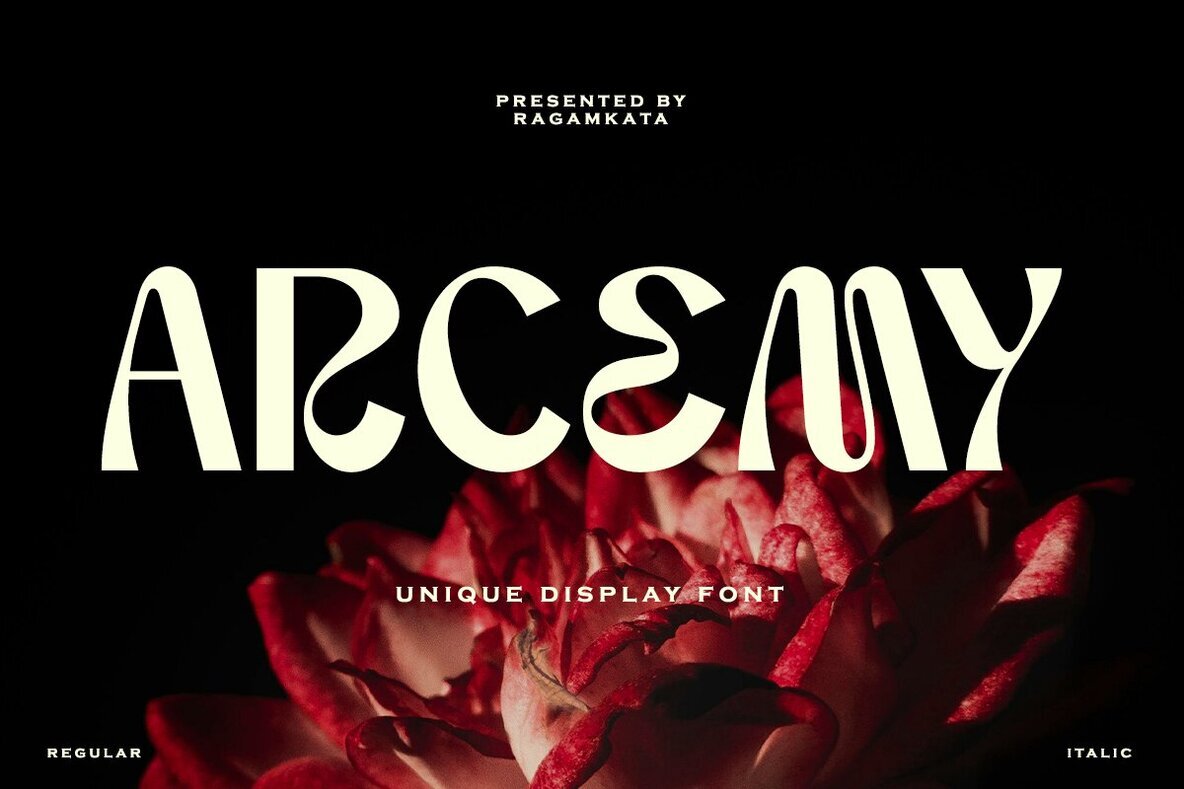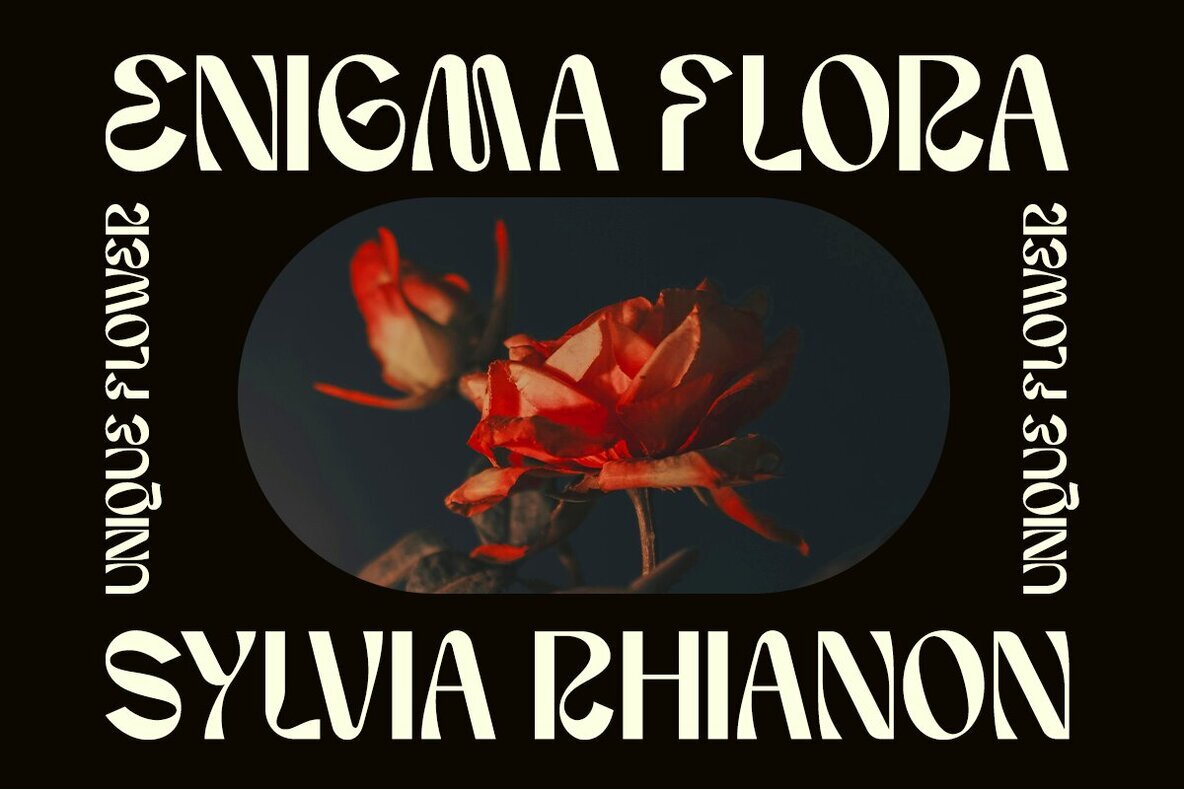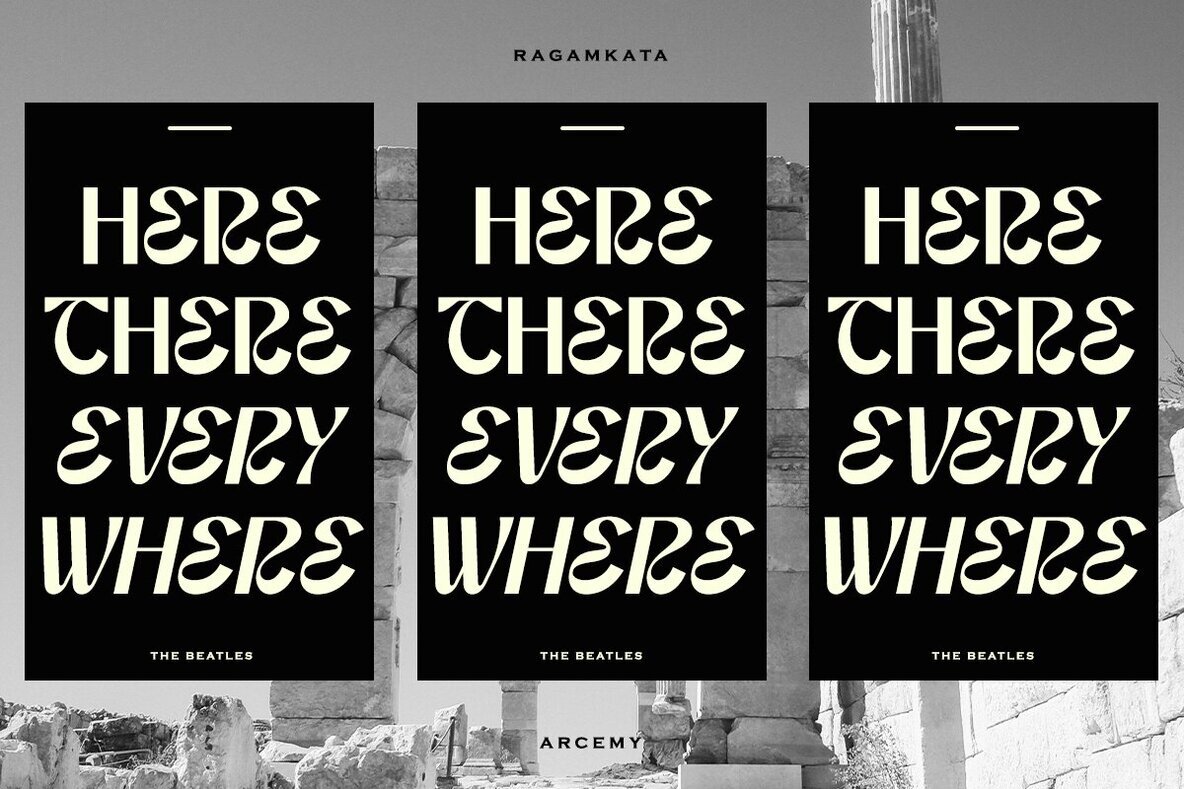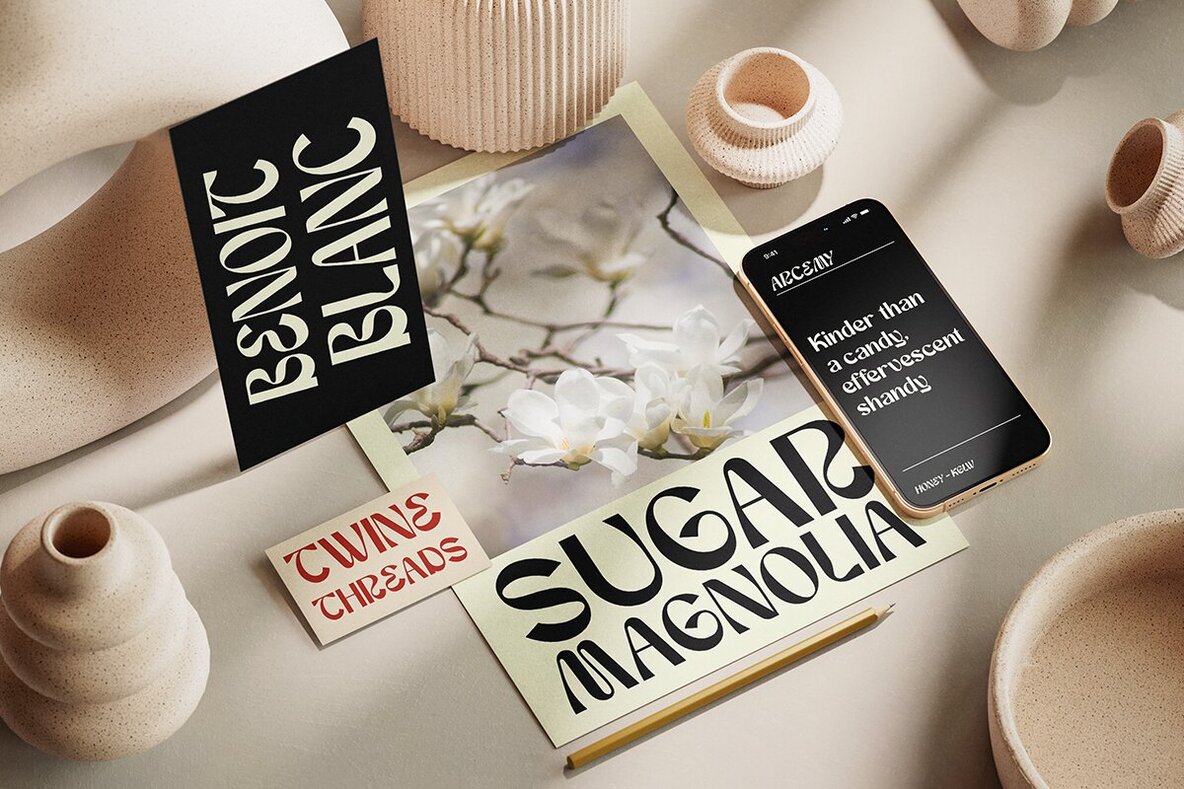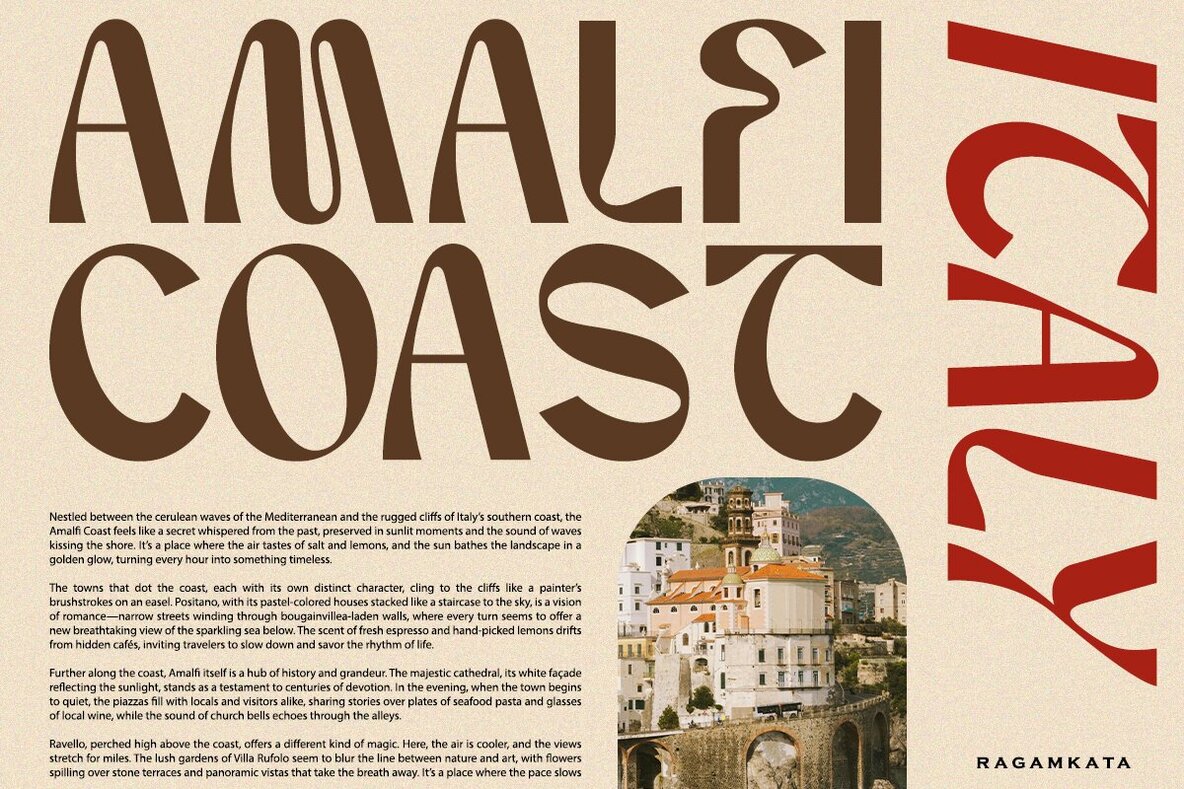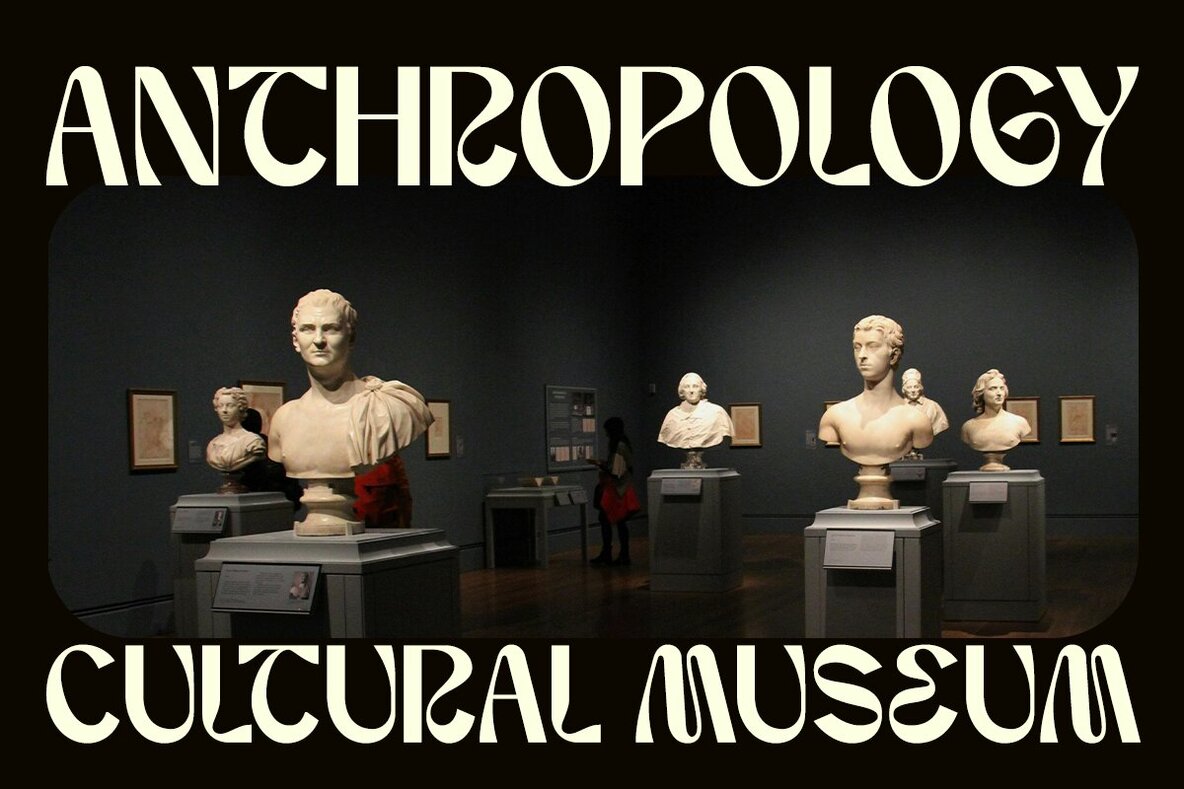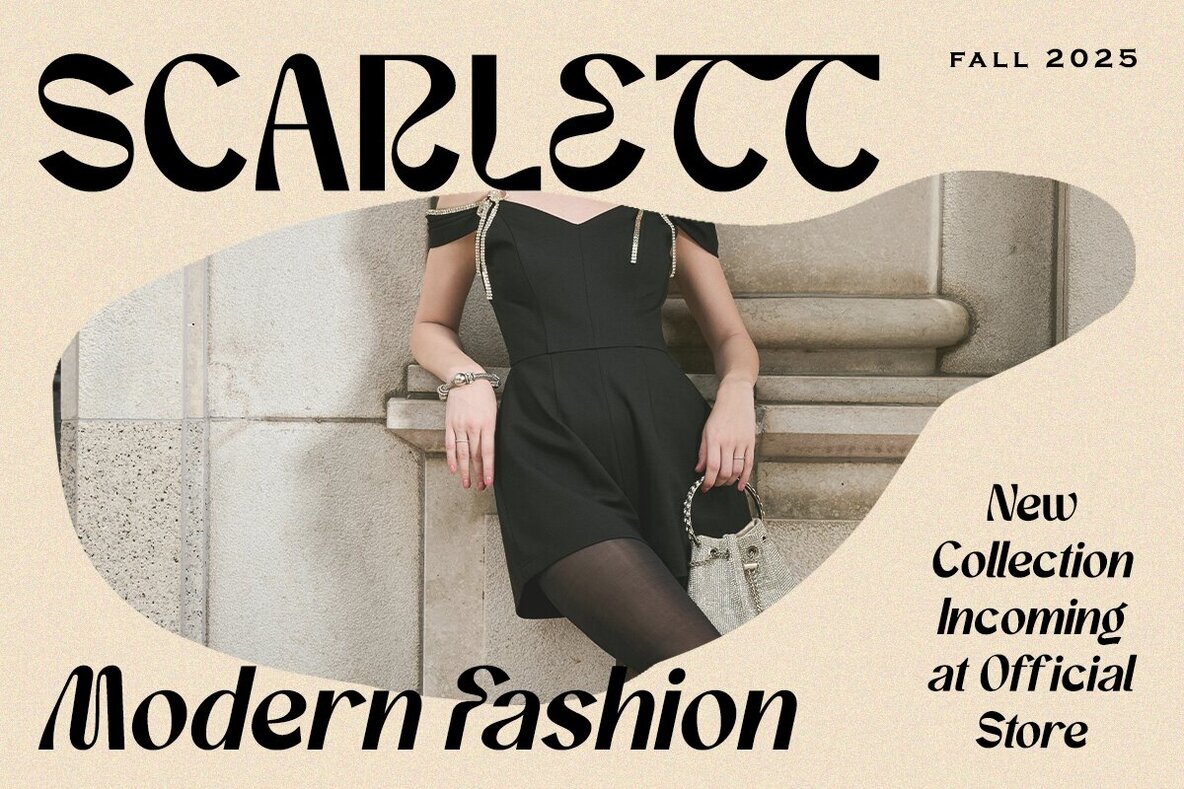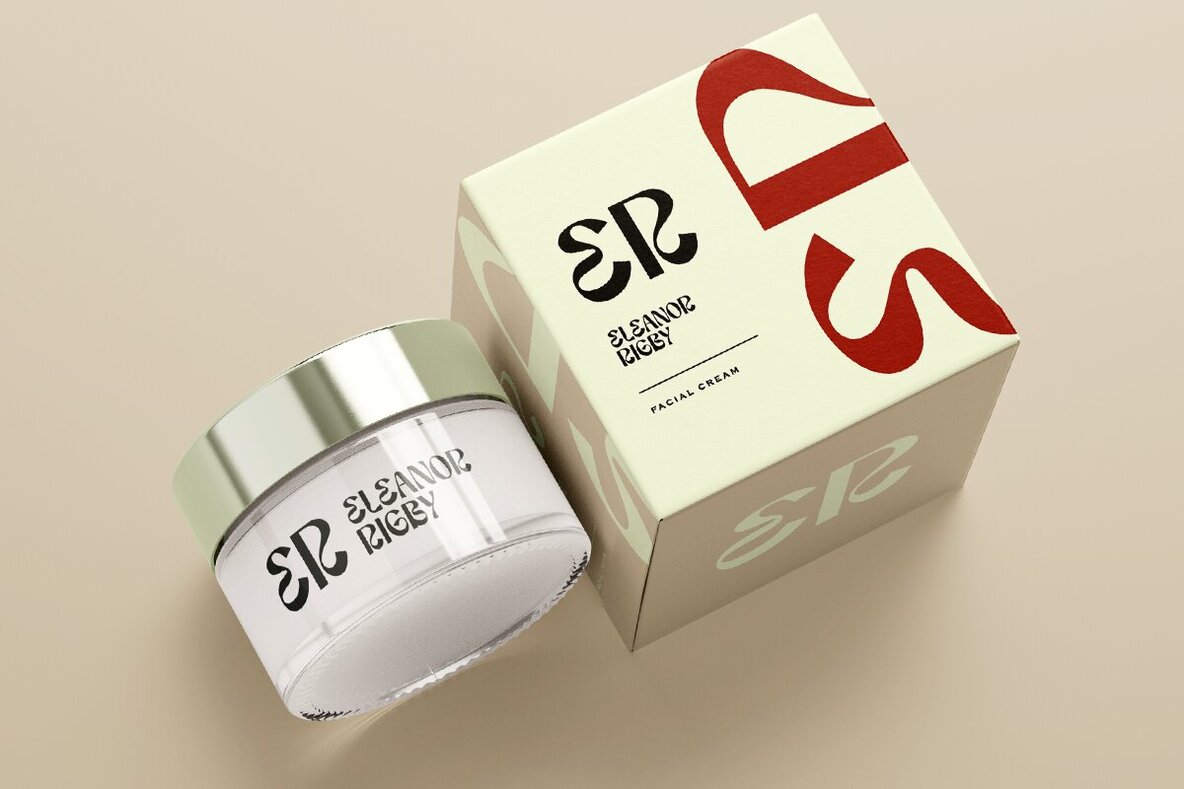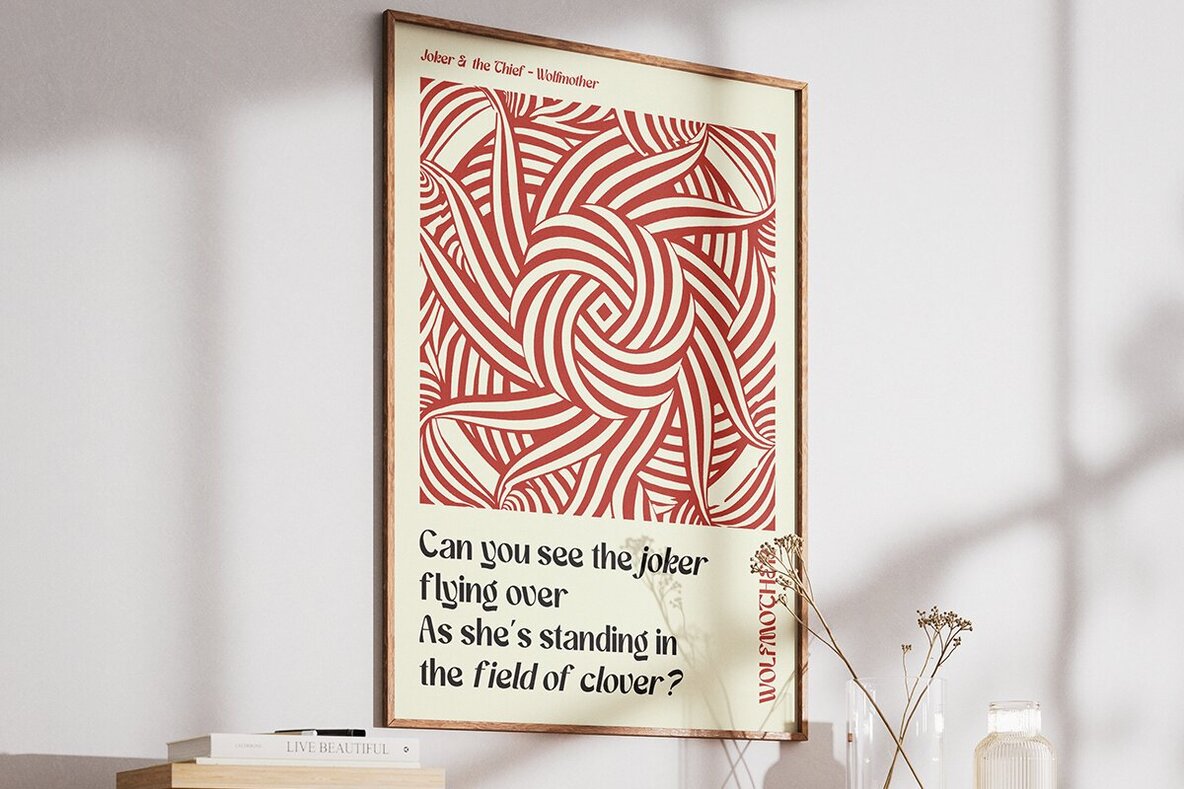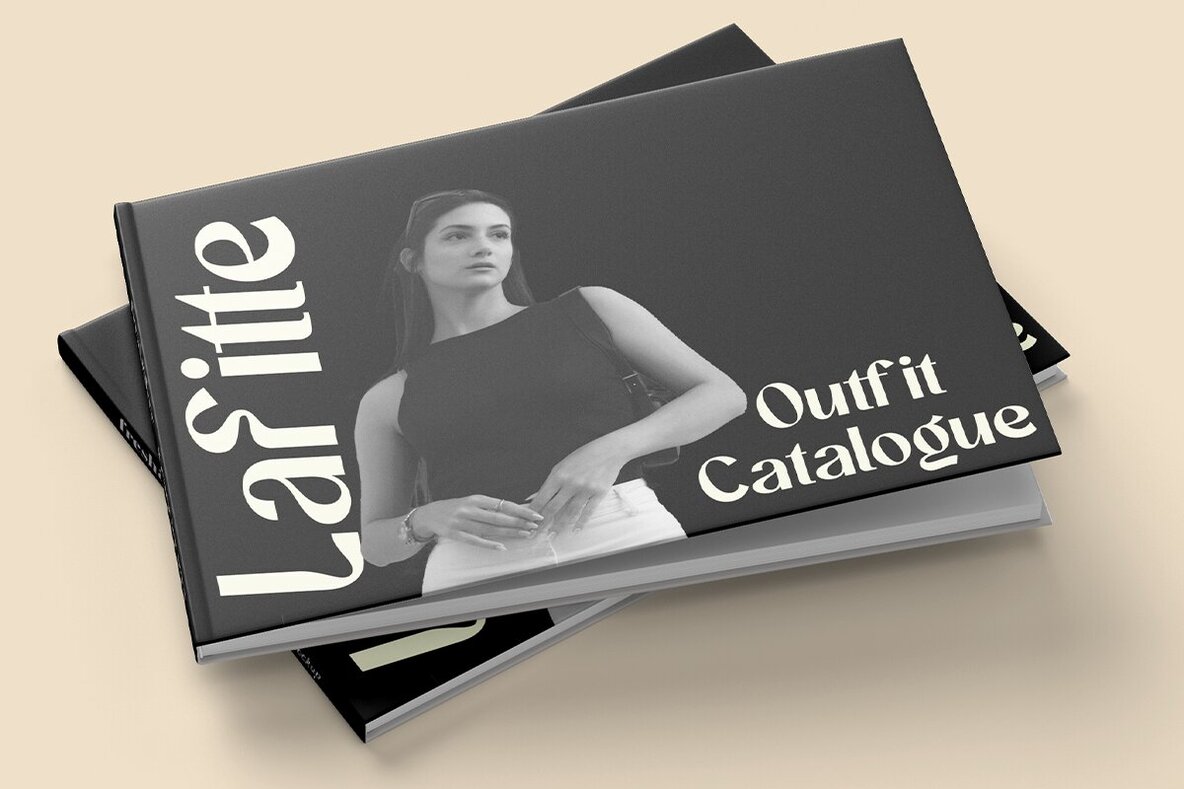
Arcemy: A Versatile Display Sans Font with Retro Charm
Arcemy is a distinctive display sans serif that offers remarkable versatility for diverse design projects. Its unique letter proportions contribute to a friendly and approachable feel, making it ideal for headlines, titles, and branding endeavors. Additionally, a thoughtfully curated selection of alternates enhances the font's rhythmic and dynamic personality, perfectly blending retro charm with modern sensibility.
• Arcemy
• Arcemy Italic